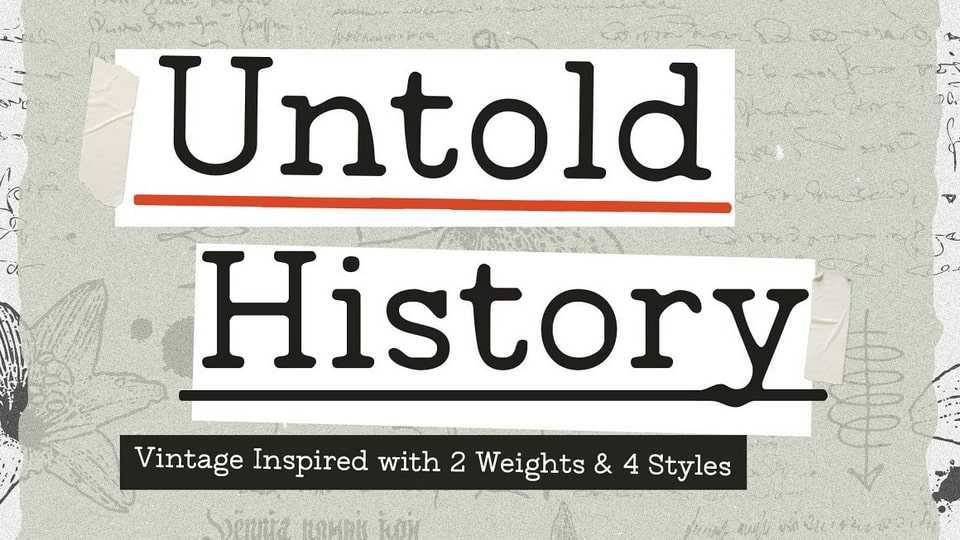
Download Untold History font, a classic typewriting typeface designed in modern style. Inspired by classic typing machines, this font gives the taste of the past while still being versatile enough for modern designs.